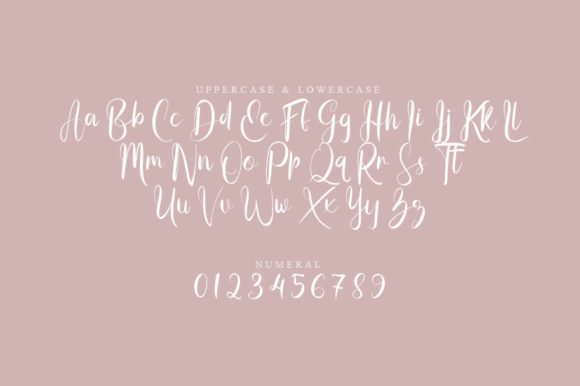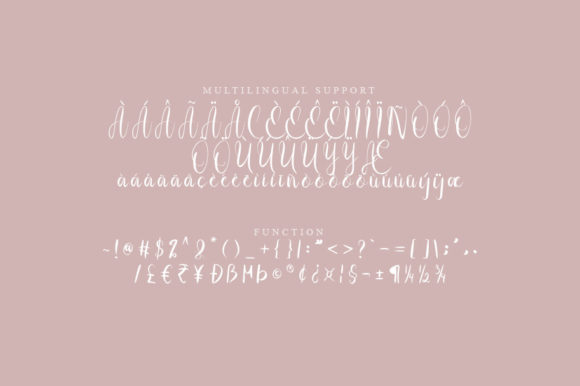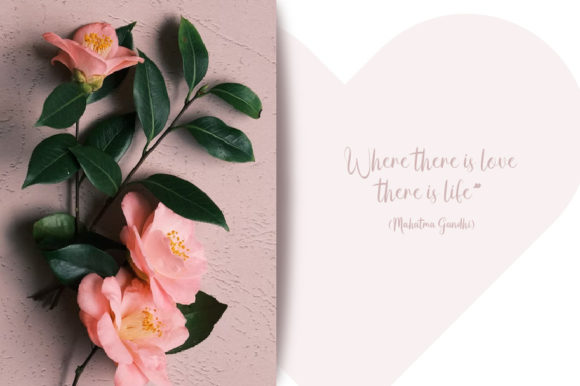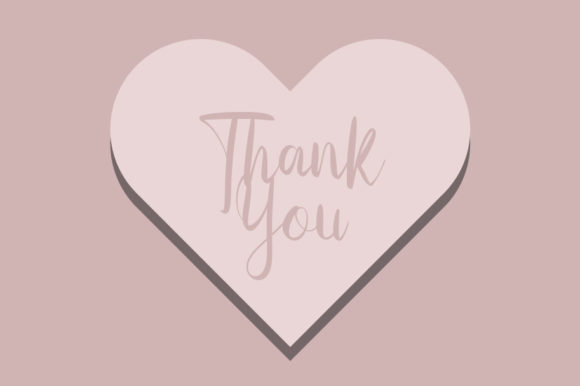
Introducing Anse Script Font: The Timeless Choice for Stunning Designs
Are you a designer or crafter looking for a font that can add a touch of elegance and sophistication to your work? Look no further than Anse Script Font! This lovely and timeless handwritten font is the perfect choice for creating eye-catching logos, branding, and quotes that will leave a lasting impression.
The Unique Charm of Anse Script Font
What sets Anse Script Font apart from other fonts is its unique and beautiful touch. Every letter has been carefully crafted to have its own distinct character, giving your design a personal and handmade feel. The font’s flowing lines and curves create a sense of movement and fluidity, making it perfect for designs that require a touch of elegance and refinement.
Anse Script Font is an excellent choice for creating logos and branding materials. Its timeless and classic look makes it suitable for a wide range of industries, from fashion and beauty to food and hospitality. The font’s unique charm and character will help your brand stand out from the competition and leave a lasting impression on your customers.
Add a Touch of Elegance to Your Quotes
Anse Script Font is also perfect for creating stunning quotes and typography. The font’s flowing lines and curves add a touch of elegance and sophistication to any quote, making it perfect for social media posts, blog articles, and marketing materials. Whether you’re looking to inspire, motivate, or simply add a touch of personality to your content, Anse Script Font is the perfect choice.
Why Designers and Crafters Love Anse Script Font
Designers and crafters love Anse Script Font for its versatility and ease of use. The font is easy to read and works well in a variety of contexts, from digital designs to print materials. Additionally, the font’s unique charm and character make it perfect for creating one-of-a-kind designs that stand out from the crowd.
Tips for Using Anse Script Font
Here are a few tips for getting the most out of Anse Script Font:
- Use it for logos and branding materials to add a touch of elegance and sophistication.
- Pair it with bold fonts for a striking contrast.
- Use it for quotes and typography to add a touch of personality and elegance.
| Font Name | Anse Script Font |
| Author | khalwa.studio |
In conclusion, Anse Script Font is a timeless and lovely handwritten font that is perfect for designers and crafters looking to add a touch of elegance and sophistication to their work. Its unique charm and character make it perfect for creating eye-catching logos, branding, and quotes that will leave a lasting impression. Whether you’re a seasoned designer or just starting out, Anse Script Font is a must-have in your font collection.
Get Ready to Elevate Your Designs with Anse Script Font